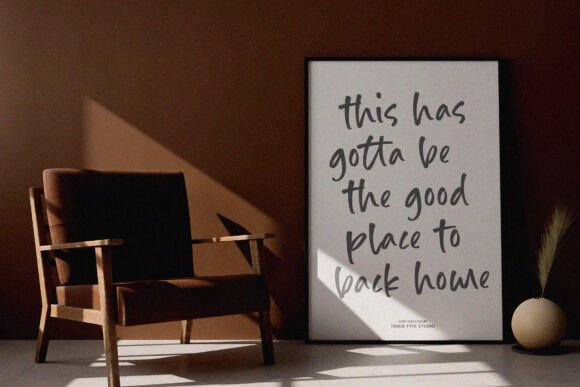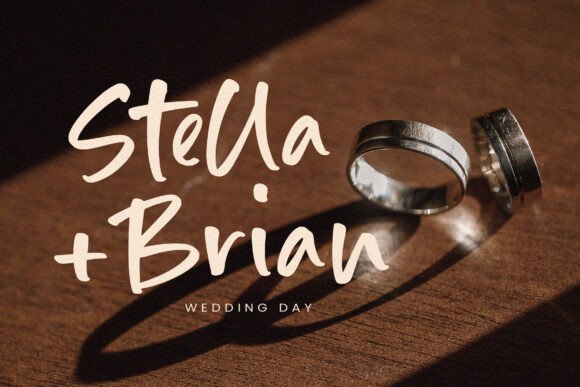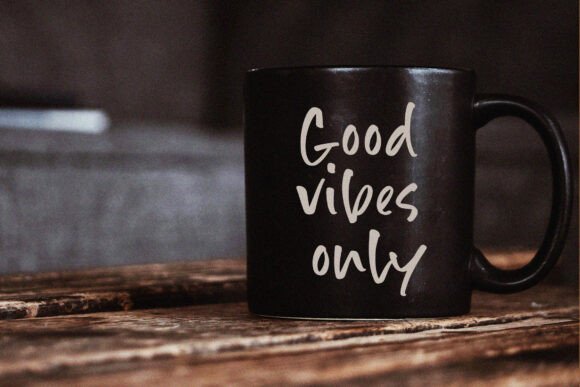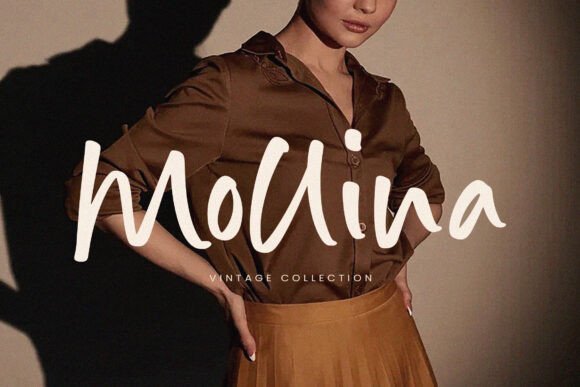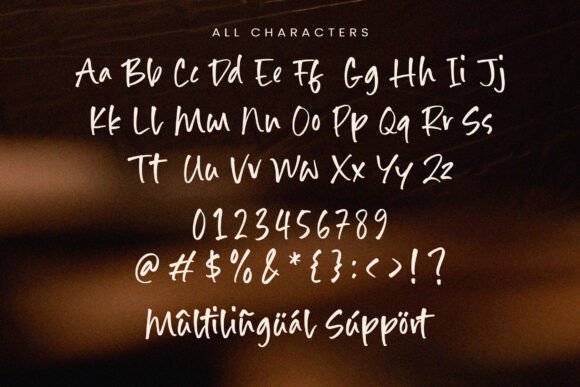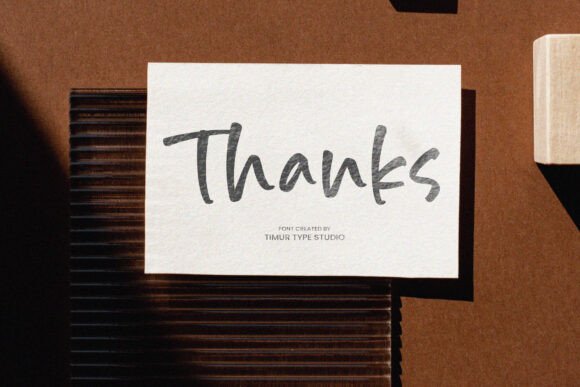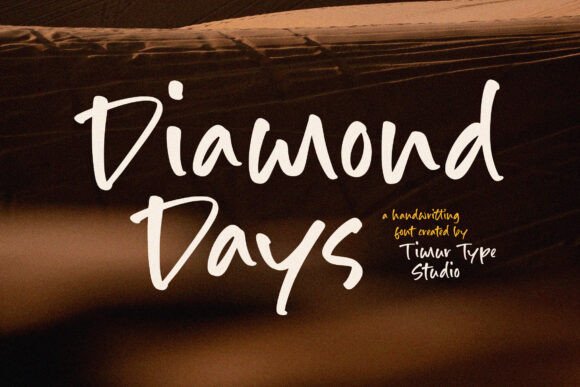
Diamond Days Font: Elevate Your Designs with Elegance and Sophistication
In the world of typography, few fonts capture the essence of elegance and sophistication as beautifully as Diamond Days. This stunning handwritten script font is designed to add a touch of refinement and charm to any design, making it a perfect choice for creative projects that demand a high level of style and sophistication. In this article, we’ll explore the features, benefits, and uses of Diamond Days Font, and why it’s become a go-to choice for designers and crafters alike.
The Characteristics of Diamond Days Font
Diamond Days Font is characterized by its flowing, cursive strokes and refined aesthetic. The font’s smooth curves and natural handwriting style evoke a sense of warmth and individuality, making it perfect for designs that require a personal touch. The elegant strokes and refined letterforms of Diamond Days Font exude a sense of sophistication and luxury, making it ideal for high-end branding, wedding invitations, and other creative projects that demand a high level of style.
What Makes Diamond Days Font Stand Out?
So, what sets Diamond Days Font apart from other script fonts? Here are a few key features that make it a standout choice:
• Elegant Handwritten Style: Diamond Days Font boasts a beautiful, handwritten style that adds a touch of warmth and personality to any design.
• Flowing Cursive Strokes: The font’s flowing cursive strokes create a sense of movement and fluidity, making it perfect for designs that require a sense of dynamism.
• Refined Aesthetic: The refined aesthetic of Diamond Days Font makes it perfect for high-end branding, luxury packaging, and other designs that demand a high level of sophistication.
• Natural Handwriting Style: The font’s natural handwriting style makes it perfect for designs that require a personal touch, such as wedding invitations and greeting cards.
Uses of Diamond Days Font
Diamond Days Font is a versatile font that can be used in a variety of creative projects, including:
• Wedding Invitations: The font’s elegant and sophisticated style makes it perfect for wedding invitations, save-the-date cards, and other wedding-related designs.
• Branding and Logo Design: Diamond Days Font is ideal for high-end branding and logo design, adding a touch of luxury and sophistication to any brand.
• Greeting Cards and Stationery: The font’s natural handwriting style makes it perfect for greeting cards, stationery, and other paper crafts.
• Packaging Design: Diamond Days Font can be used in luxury packaging design, adding a touch of elegance and sophistication to any product.
Why Designers and Crafters Love Diamond Days Font
Designers and crafters love Diamond Days Font for several reasons:
In conclusion, Diamond Days Font is a stunning handwritten script font that adds a touch of elegance and sophistication to any design. Its flowing cursive strokes, refined aesthetic, and natural handwriting style make it perfect for a wide range of creative projects, from wedding invitations to branding and packaging design. Whether you’re a designer or crafter, Diamond Days Font is a great choice for anyone looking to elevate their designs and add a touch of luxury and sophistication.